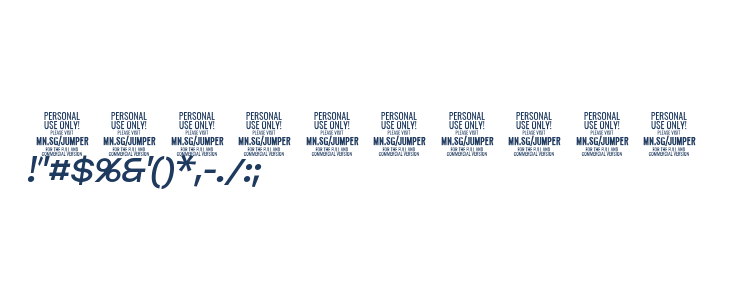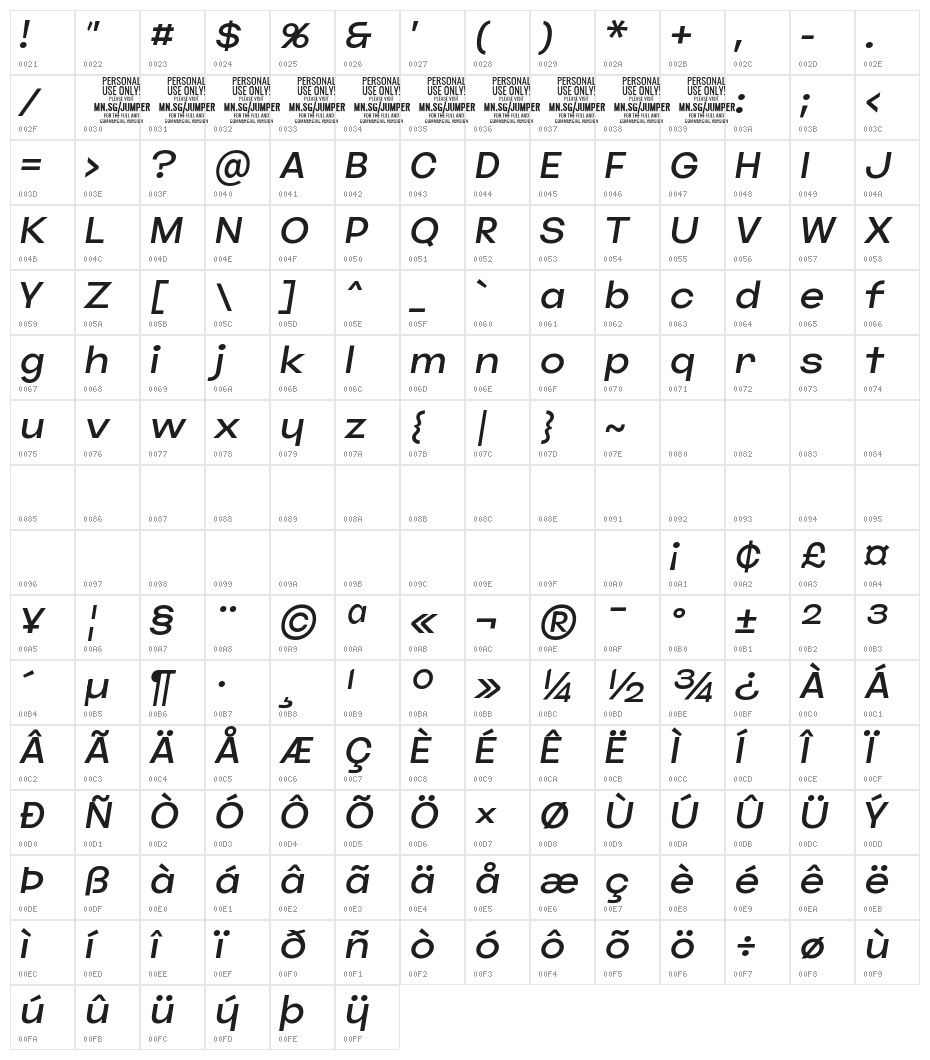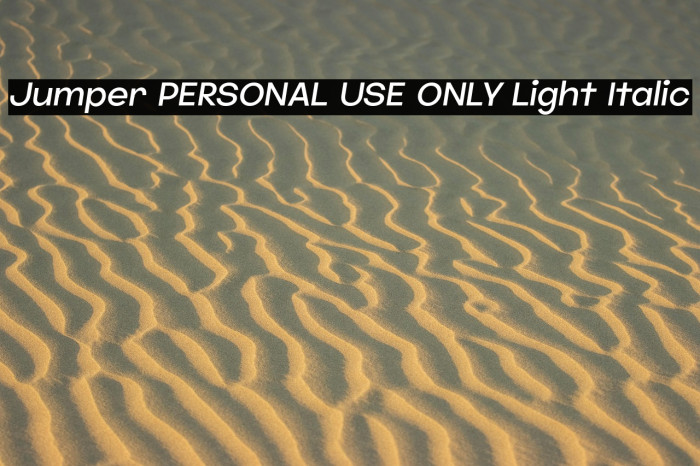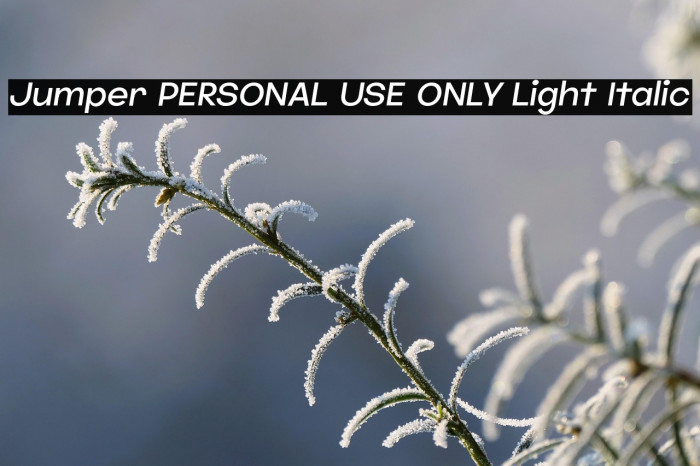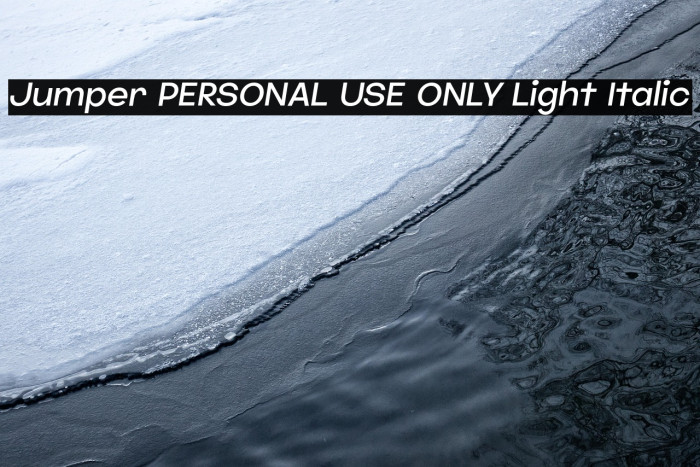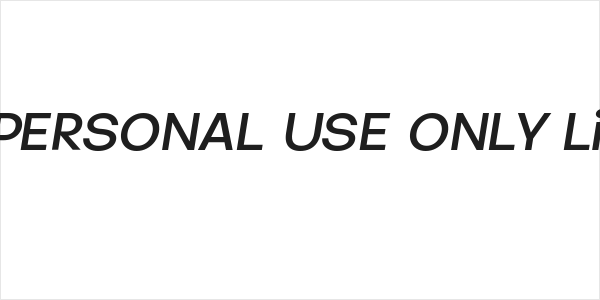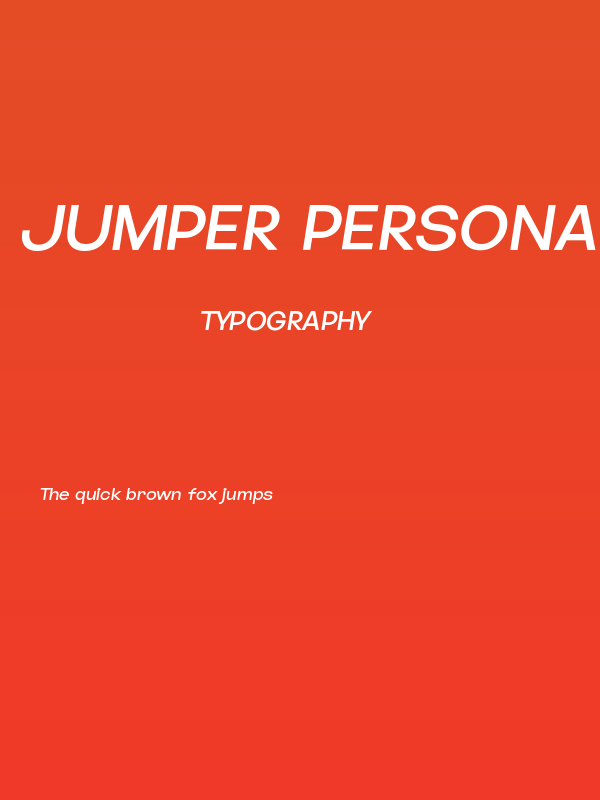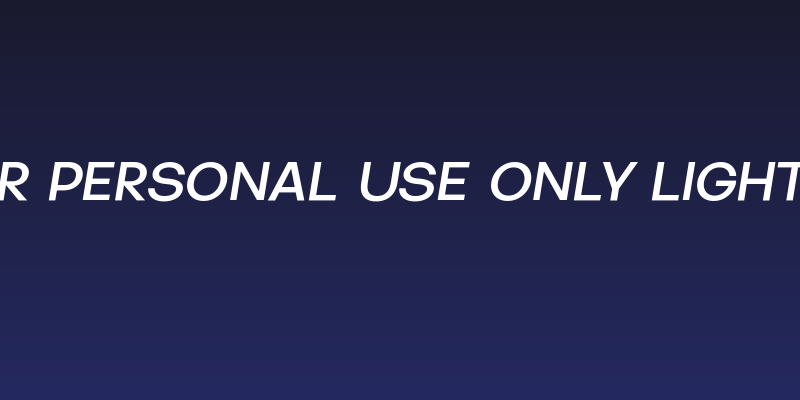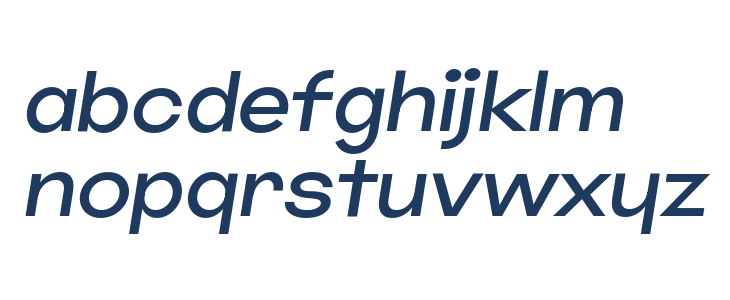
Jumper PERSONAL USE ONLY Light Italic Font
Jumper PERSONAL USE ONLY Light Italic Description
This font features a sleek and modern design with a light weight and italic style. The characters are slightly slanted, giving a sense of motion and elegance. The sans-serif design ensures clean lines and a contemporary feel, making it versatile for various applications. The uppercase and lowercase letters maintain a consistent style, with smooth curves and a balanced appearance. The numerals and special characters are designed to complement the alphabet, ensuring uniformity across all text. This font is ideal for projects that require a modern and stylish touch.
| Use Case | Headlines, Logos, Editorial design |
| Proposed Projects | Ideal for branding, advertising, and editorial design where a modern and stylish appearance is desired. |